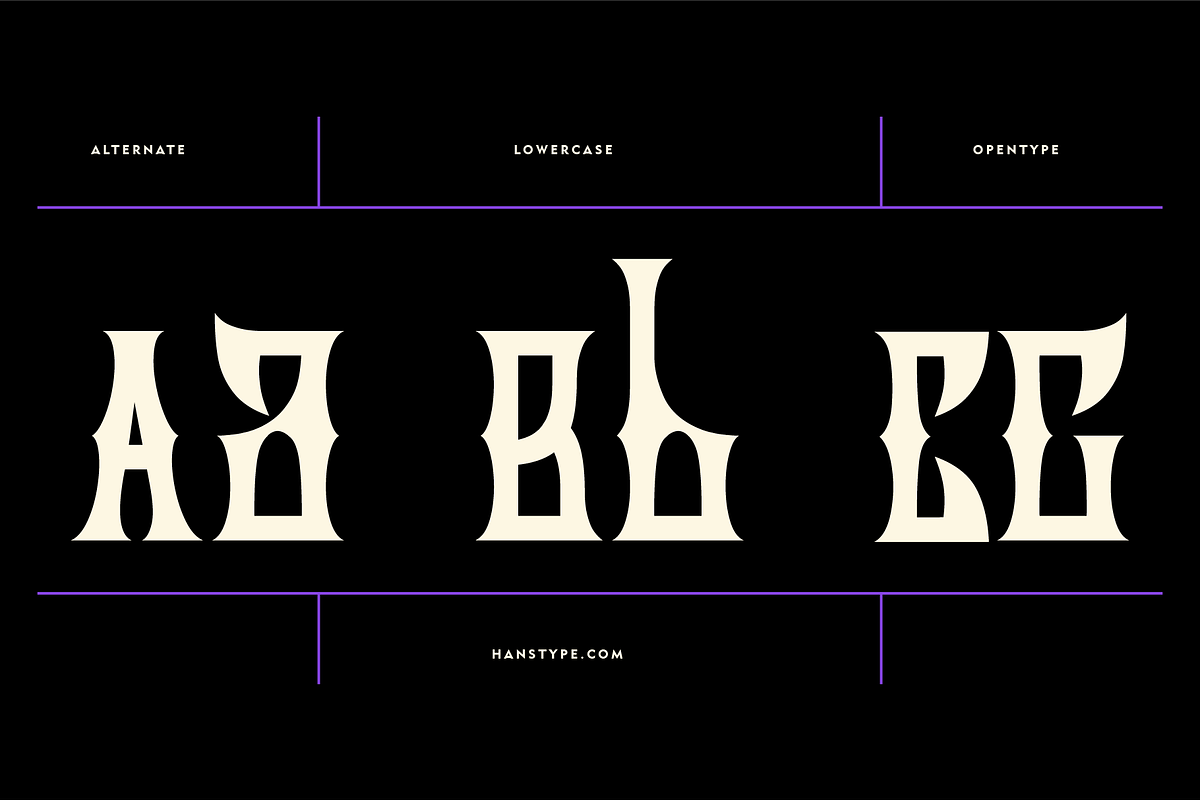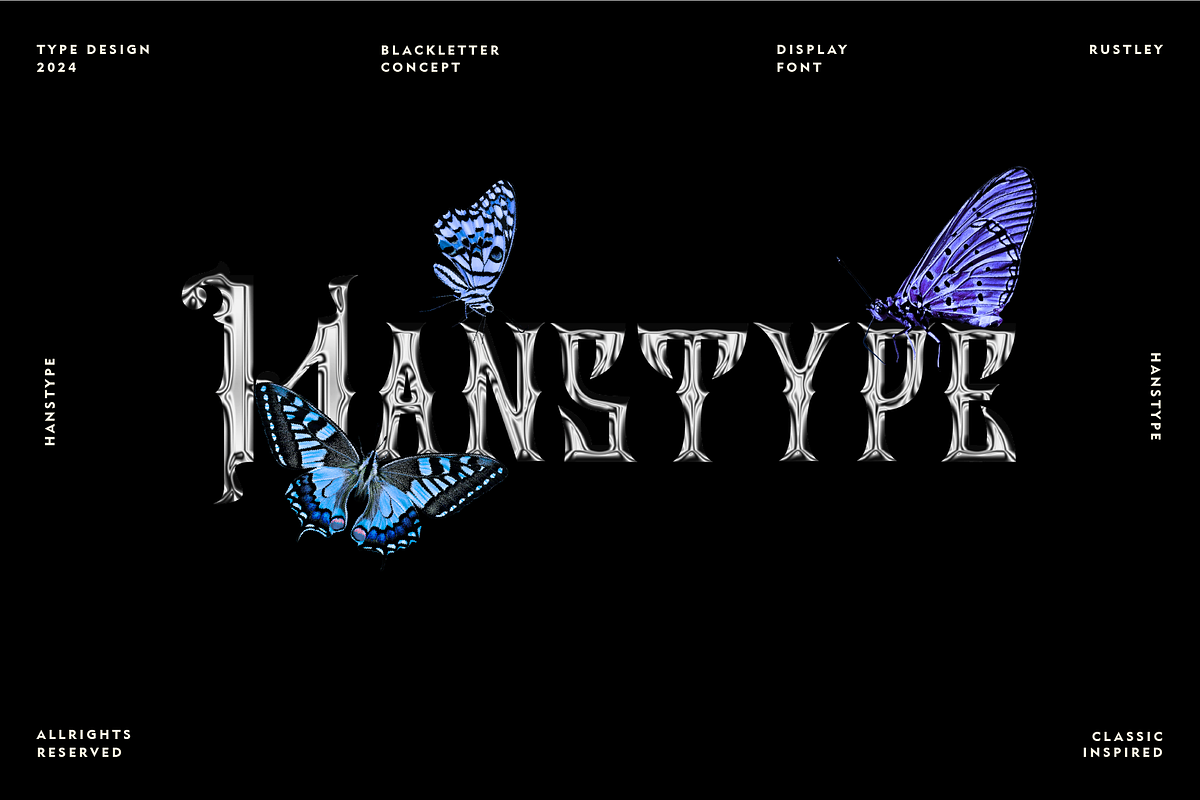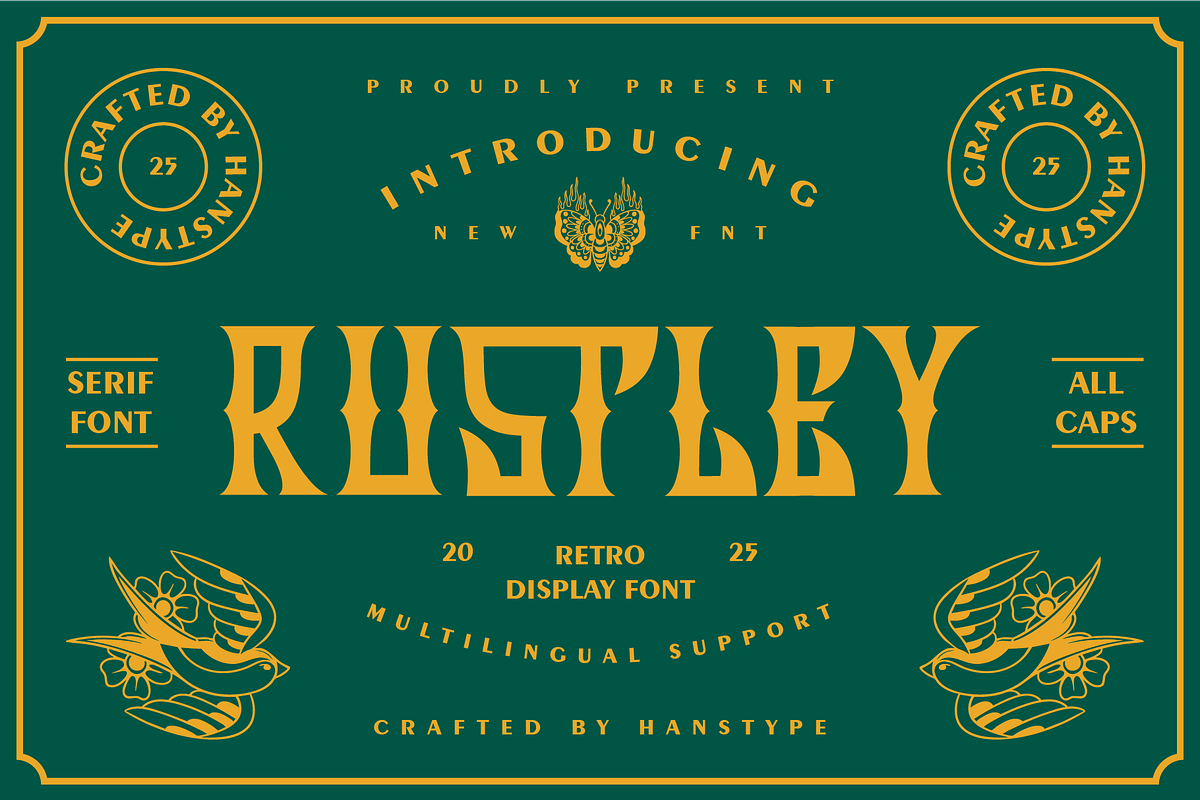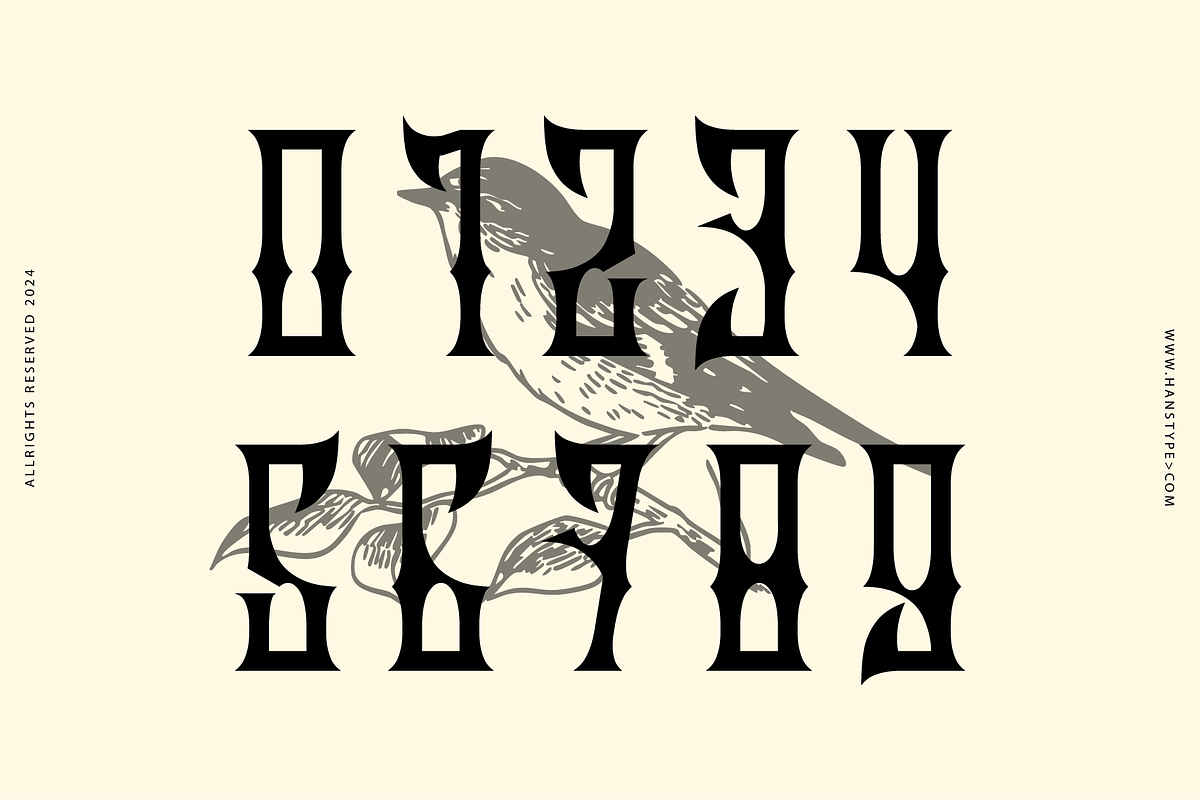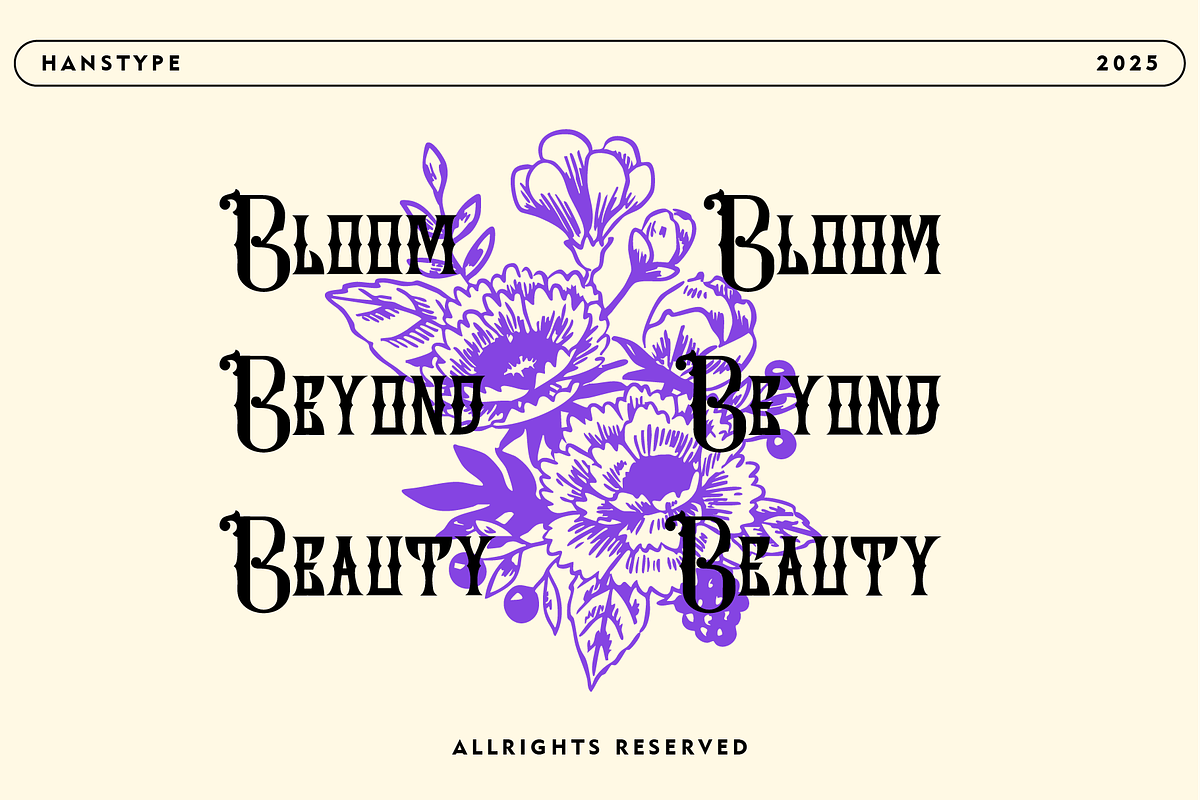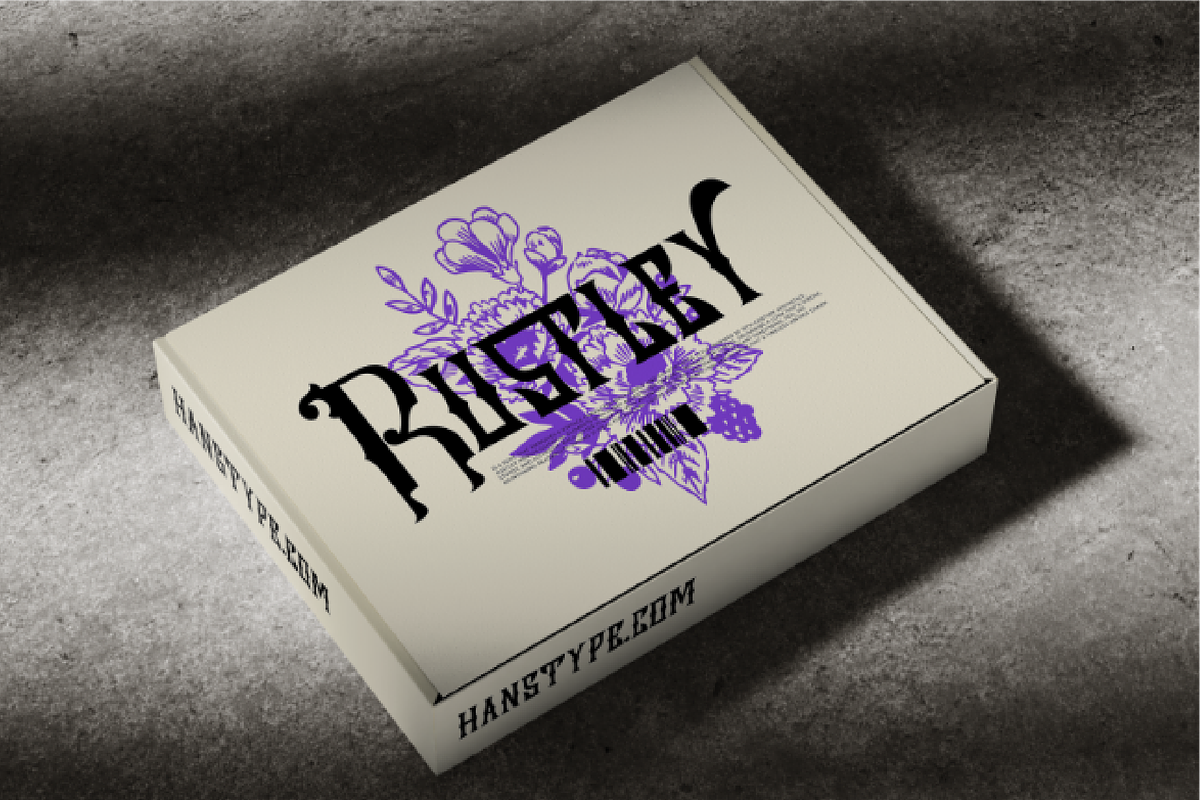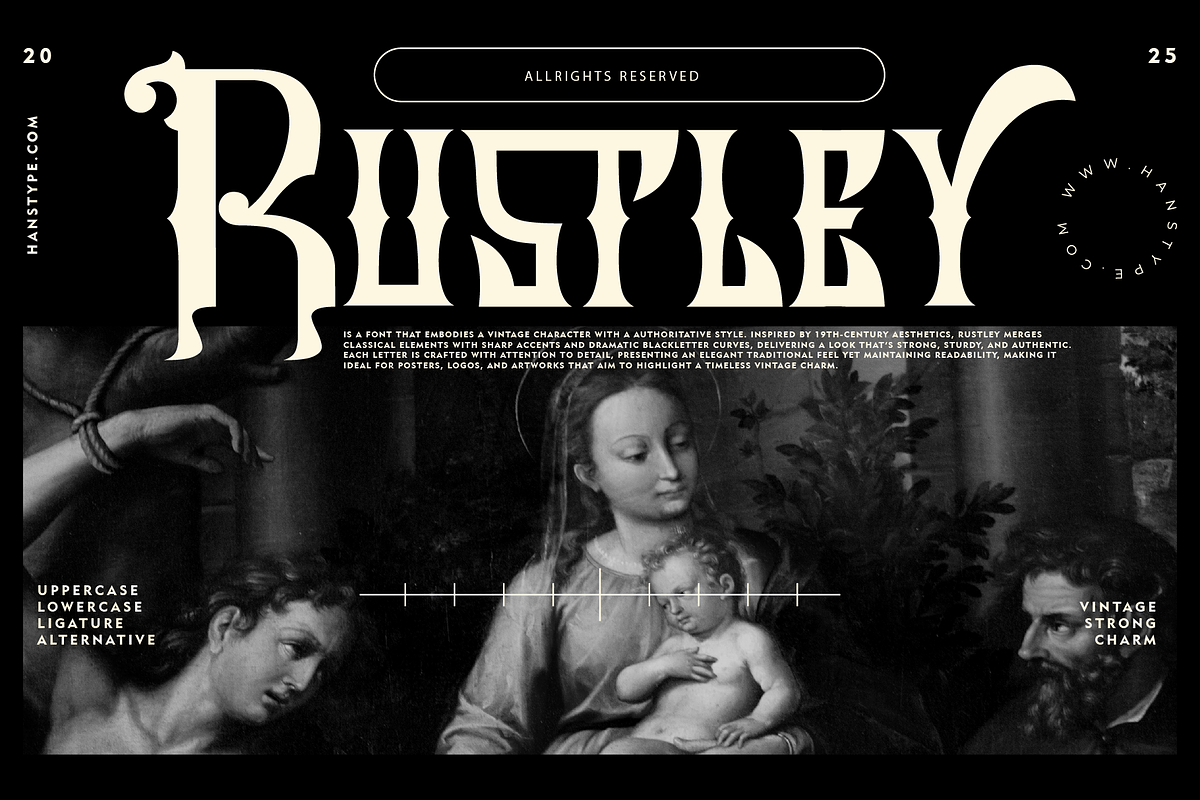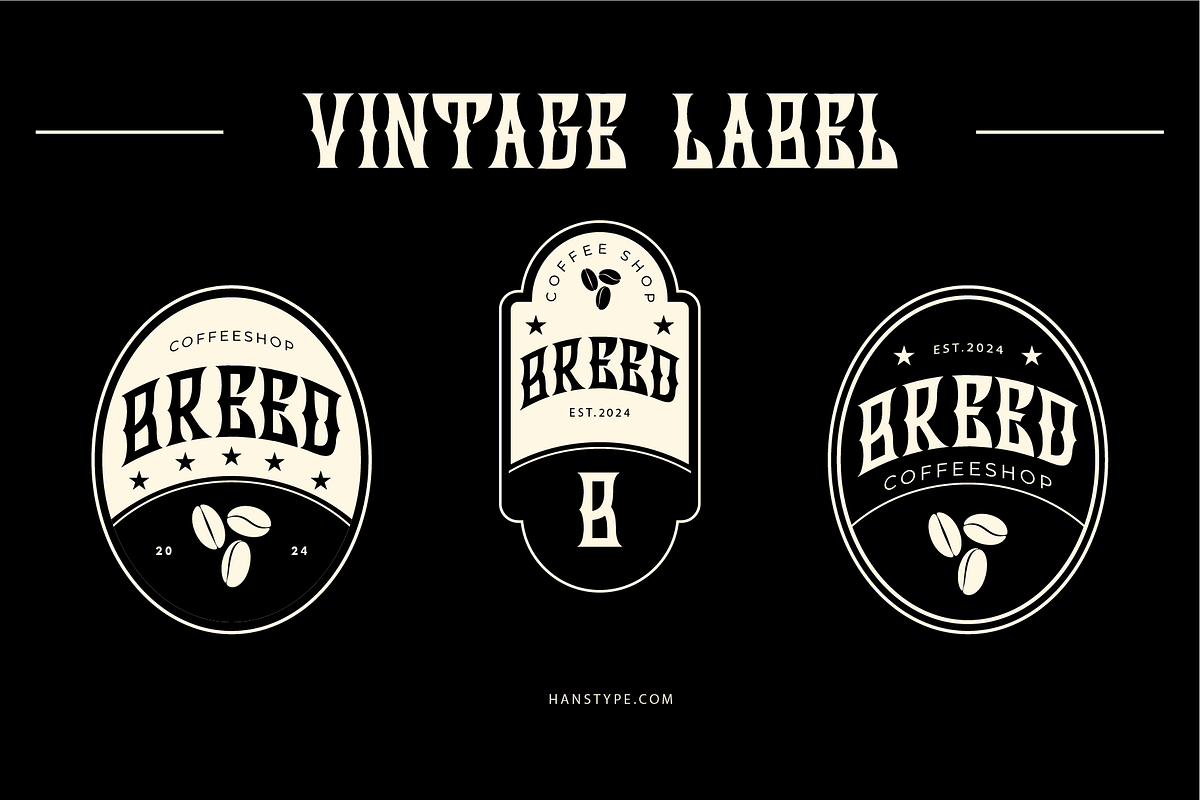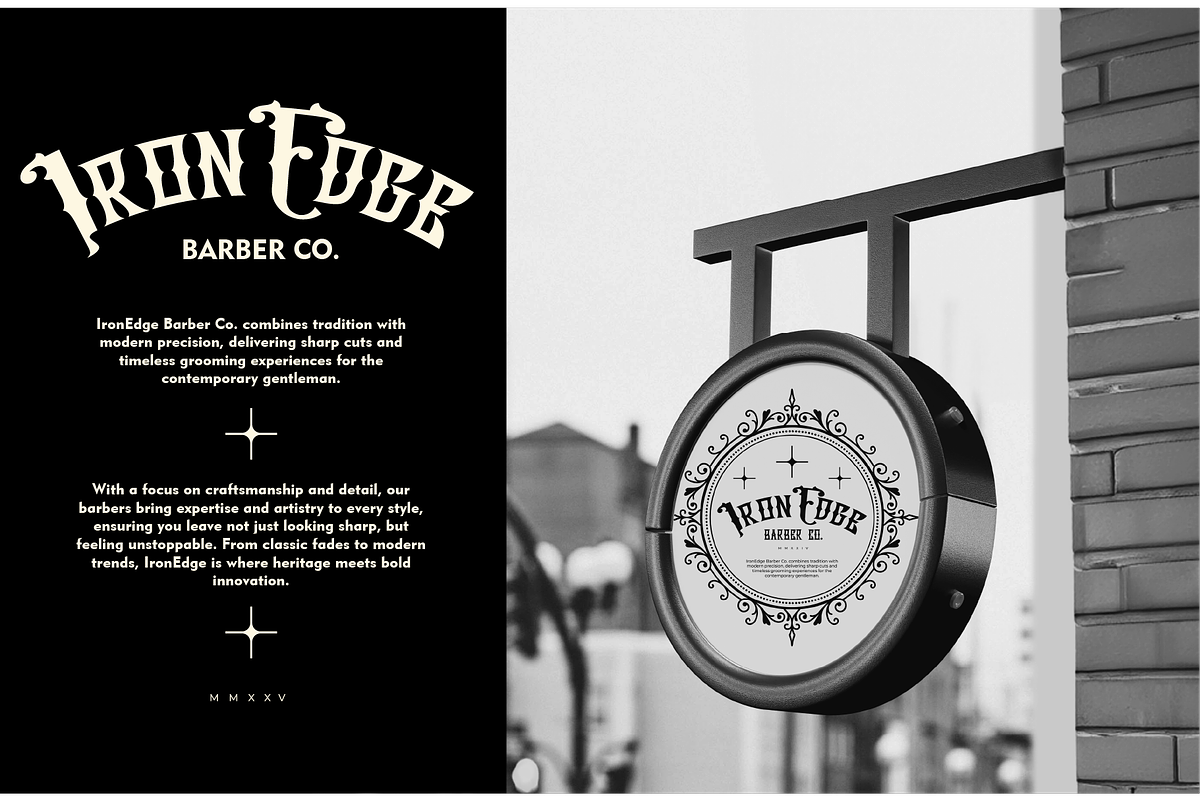
Rustley - Vintage Display Font
Rustley is a font that embodies a vintage character with a authoritative style. inspired by 19th-century aesthetics, rustley merges classical elements with sharp accents and dramatic blackletter curves, delivering a look that’s strong, sturdy, and authentic. each letter is crafted with attention to detail, presenting an elegant traditional feel yet maintaining readability, making it ideal for posters, logos, and artworks that aim to highlight a timeless vintage charm.